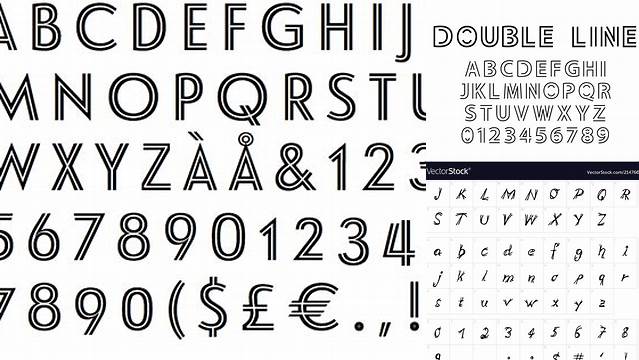
Hey guys! Ever stumbled upon a font that just screams sophistication and style? Well, chances are you've come across a double-line font. These fonts, with their unique aesthetic, are super popular for a ton of design projects. So, if you're looking to spice up your designs with something sleek, modern, and, let's be honest, kinda cool, you've come to the right place. We're diving deep into the world of double-line fonts, exploring where to find them, how to use them, and all the juicy details in between. This guide is your ultimate resource for everything double line font, and the best part? We'll be talking about free downloads too!
What Exactly is a Double Line Font?
Alright, let's get the basics down. What exactly is a double line font? Simply put, it's a font where each letter, number, and symbol is created with two parallel lines instead of a solid fill. Think of it like a stylized outline, but with a deliberate gap in the middle. This design gives the font a distinctive look, often associated with modernism, technology, and a touch of elegance. Because of this design, double line fonts are frequently used to create a sense of movement or dimension. They’re an excellent way to add a unique visual flair to your designs. Because of this, double line fonts can instantly elevate your design projects and make your work stand out from the crowd. Plus, they're versatile! They look amazing in logos, headings, posters, and even smaller bits of text, making them a go-to choice for designers across various fields. The beauty of these fonts lies in their simplicity and the visual impact they create, making them a favorite among both beginners and seasoned designers. They're a fantastic way to make a statement without overwhelming your audience, offering a sleek, uncluttered look that's both stylish and functional. When you utilize a double line font, your message will be delivered with clarity and a touch of modern flair, ensuring your work looks professional and eye-catching. The double line design also adds a sense of depth and interest that solid fonts often lack, grabbing the viewer's attention and making your design memorable.
Double-line fonts come in all shapes and sizes, offering versatility for different design needs. Whether you're aiming for a minimalist aesthetic or a more intricate design, there is a double-line font perfect for your project. The use of double lines creates a sense of sophistication, making your design projects look professional and polished. Many designers favor these fonts because they provide a balance of style and readability, allowing your message to be conveyed clearly while still looking unique and modern. Finding the right double line font can significantly impact your design's overall look and feel. Moreover, the double line font can be adapted to various platforms and applications, making it ideal for both digital and print media. Whether you are creating a website, designing a business card, or developing a social media campaign, double line fonts are an excellent choice. Finally, incorporating a double line font can boost your design's effectiveness and make it more memorable to your audience.